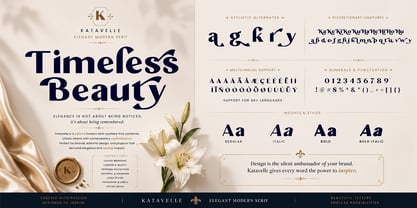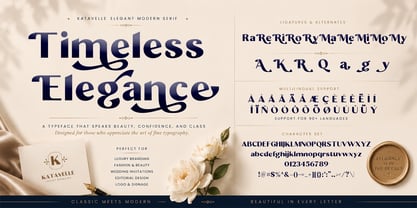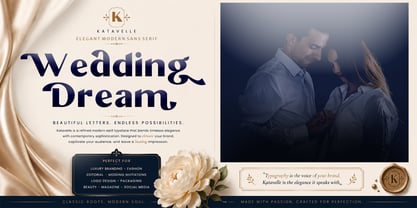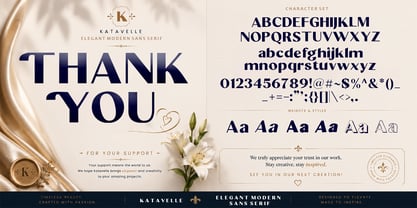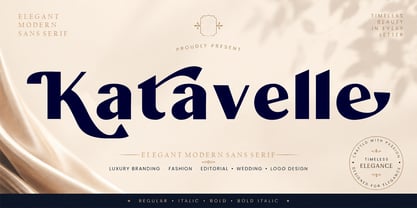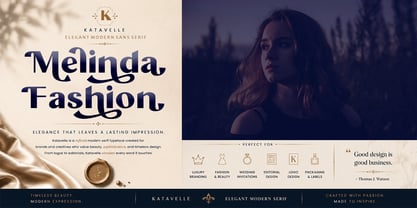
Katavelle
by Shape Studio
The Katavelle Font Family was designed by Teuku Saifullah and published by Shape Studio. Katavelle contains 6 styles and family package options. More about this family
Katavelle’s aesthetic characteristics include minimal contrast in lighter weights, bold geometric forms, and a minimalist approach that prioritizes clarity. Despite its rigid, Constructivist character, the typeface reflects the style of Roman capitals—a style that remains relevant to this day. In its digital form, Katavelle continues to be appreciated for its simplicity and elegant design.
Designers: Teuku Saifullah
Foundry: Shape Studio